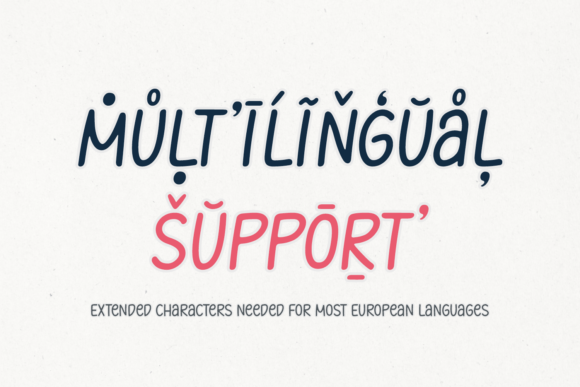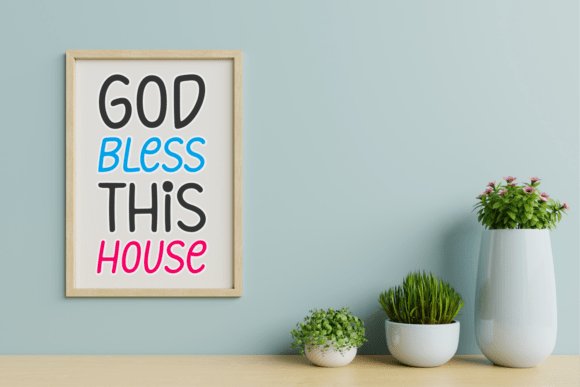
Discover the Timeless Elegance of Friendsbold Font
Have you ever sat down with a blank canvas, trying to bring a heartfelt message to life? Maybe it was a birthday card for a dear friend or a quote to inspire a loved one. Whatever the occasion, you know that the right font can make all the difference. That’s where Friendsbold Font comes in – a beautifully crafted typeface designed to add a touch of sophistication to your designs.
This versatile font is perfect for book crafting, apparel accents, and even adding inspiring words to your friends’ day. With its handwritten style and rounded-edge capital letters, Friendsbold Font effortlessly elevates your designs, making it a valuable addition to any designer’s toolkit. Whether you’re a seasoned pro or just starting out, this font is sure to bring a unique charm to your creations.
Key Features of Friendsbold Font
- Font Family: Friendsbold is a custom font designed for use in digital and print media.
- Unique Characteristics: The Friendsbold font features a bold and friendly design, perfect for use in logos, branding, and advertising materials. Its unique characteristics include a rounded shape and a subtle texture that adds depth and visual interest.
Friendsbold Font Review
Overall, I was quite impressed with the Friendsbold Font. It has a unique, friendly vibe that’s perfect for casual use, especially for blogs, social media, or other online platforms where you want to convey a sense of approachability. ✨
The font’s rounded edges and open shapes make it easy to read, even at smaller sizes. The font’s feel is also quite versatile, and it works well in a variety of contexts, from headings to body text. ✨
Limits and Areas for Improvement
While Friendsbold Font is a solid choice, there are some limitations to consider. ⚠️
- It may not be the best choice for formal or professional contexts, as it can come across as a bit too casual.
- The font’s rounded edges can also make it difficult to use for emphasis or highlighting, as the curves can make the text blend in with its surroundings.
- Finally, the font’s open shapes can make it harder to use in situations where you need to convey a sense of complexity or sophistication.
Overall, I would recommend Friendsbold Font for casual use, but it may not be the best choice for more formal or complex contexts.
The Friendsbold Font is ideal for creating bold and eye-catching titles, headings, and slogans. It’s also great for adding a touch of personality to your brand’s visual identity.
Some common use cases include:
- Banners and posters
- Social media graphics
- Business cards and letterheads
- Infographics and presentations